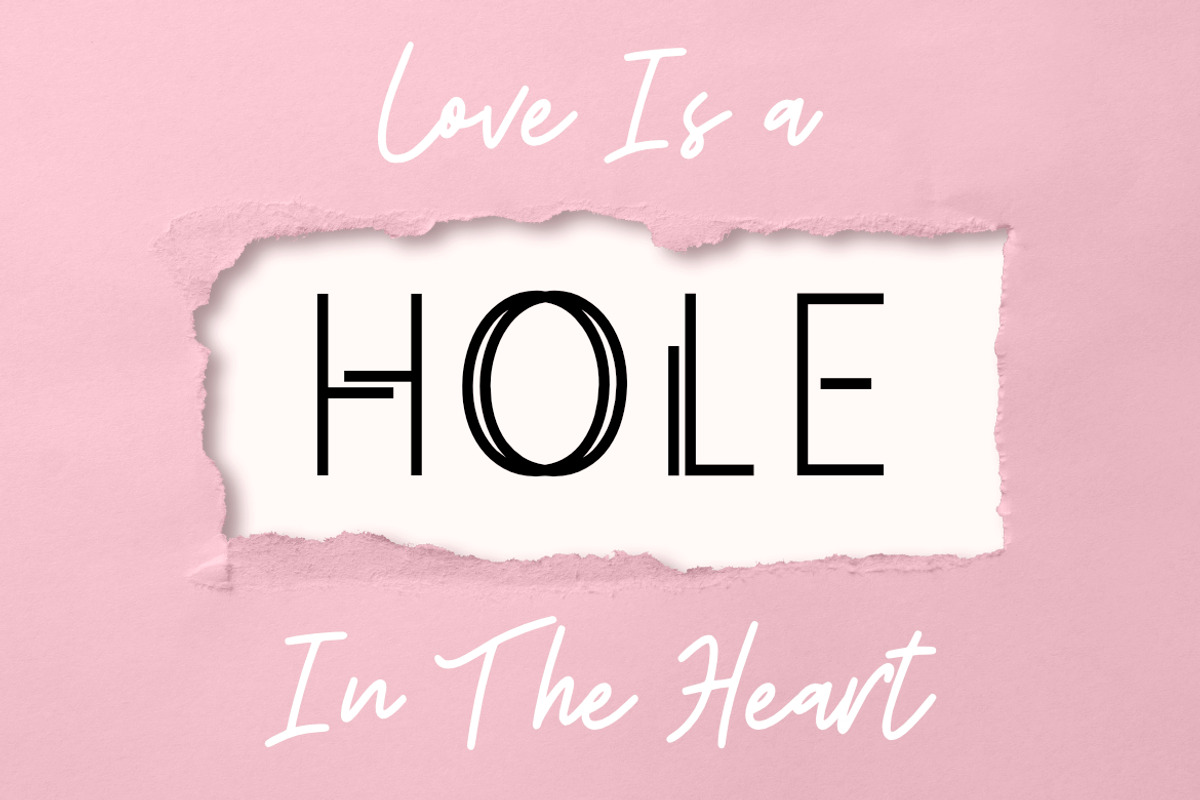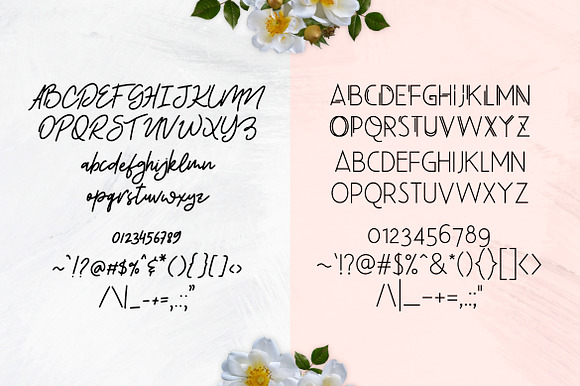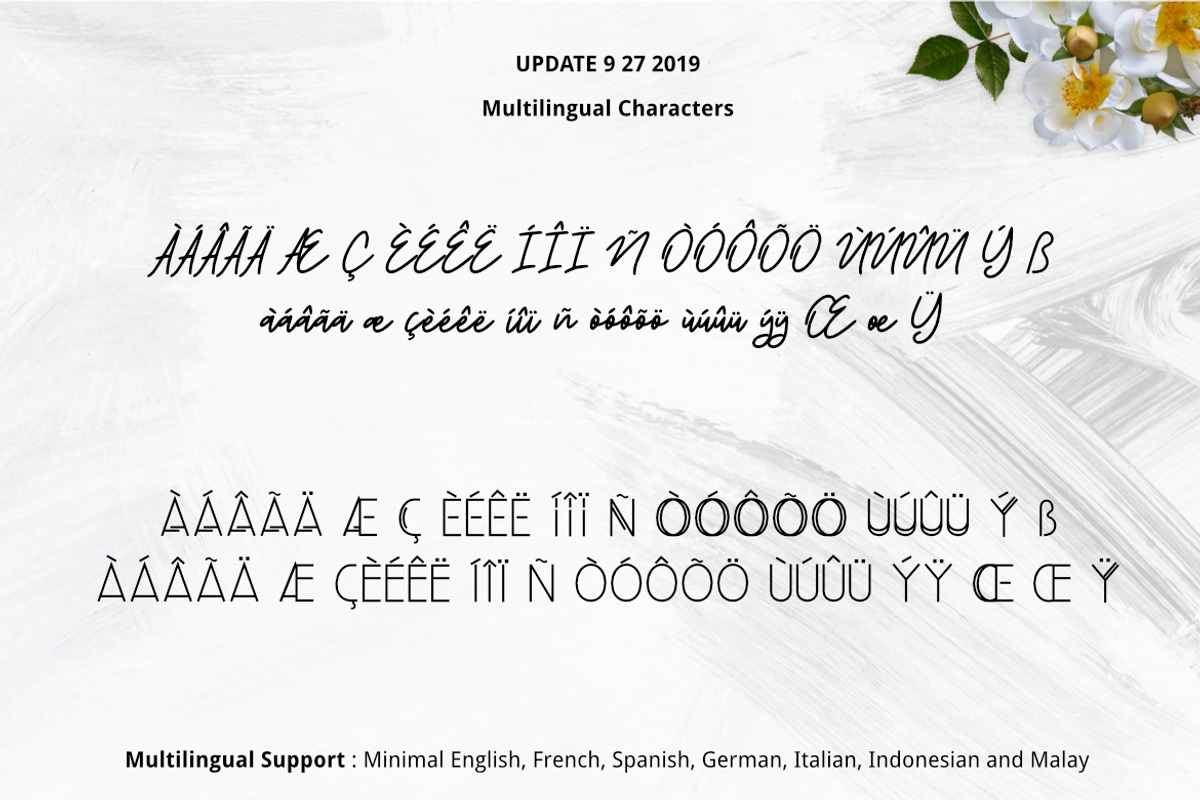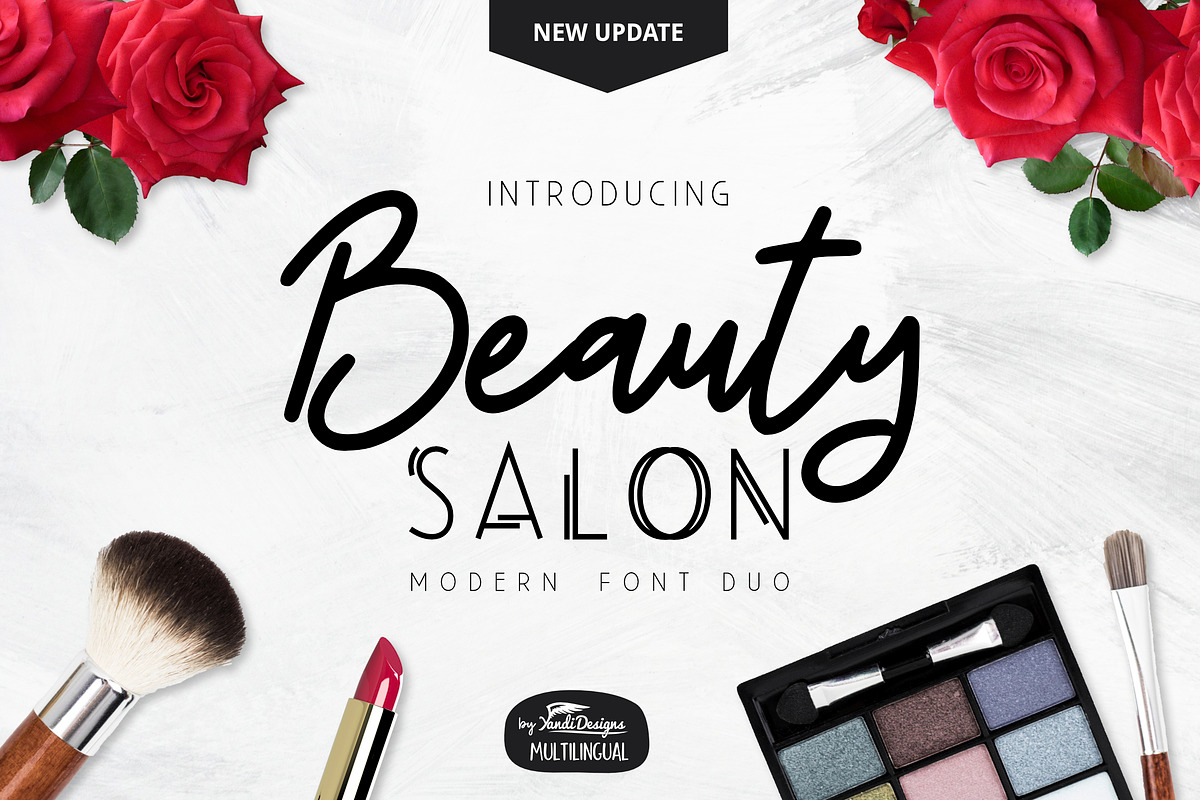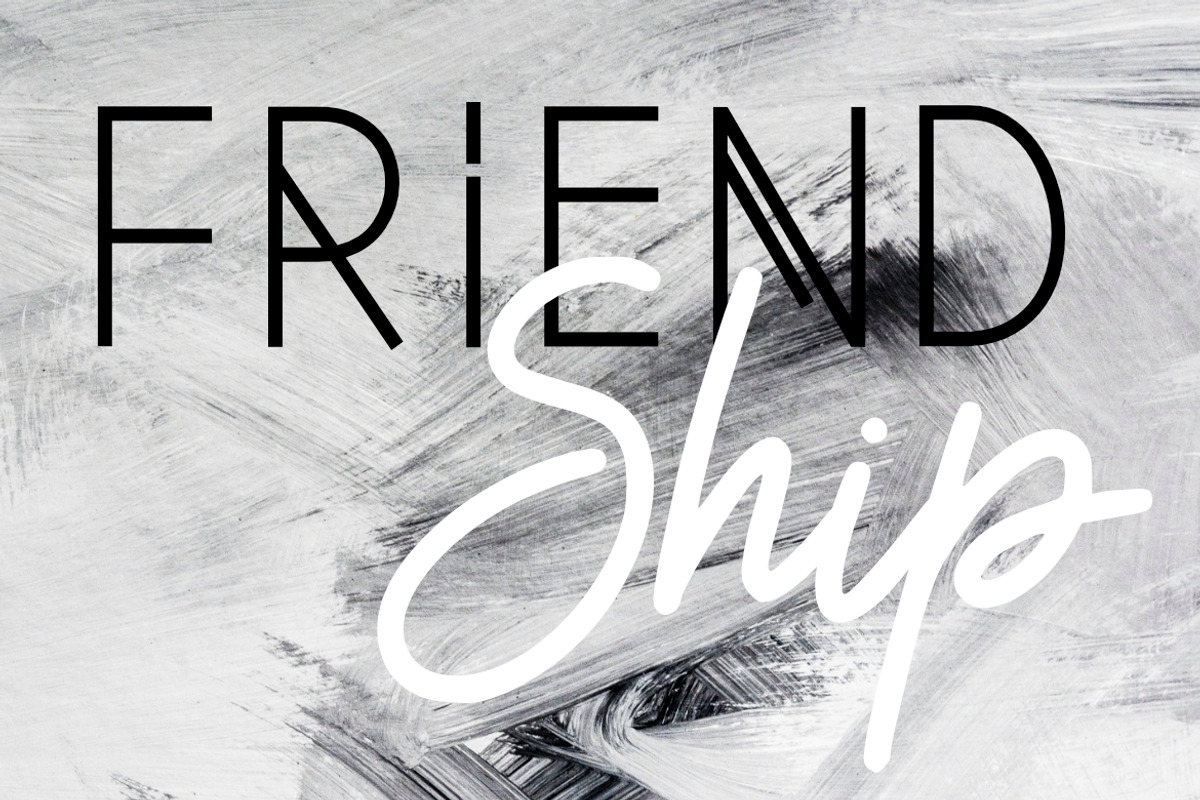
Beauty Salon Modern Font Duo
Beauty Salon Font Duo
Modern and elegant multipurpose font , suitable for many project children book, quotes, logo , heading , title etc.
Why Beauty Salon Modern Font Duo is worth a look
Beauty Salon Modern Font Duo by YandiDesigns fits naturally into Branding, posters, packaging, typography.